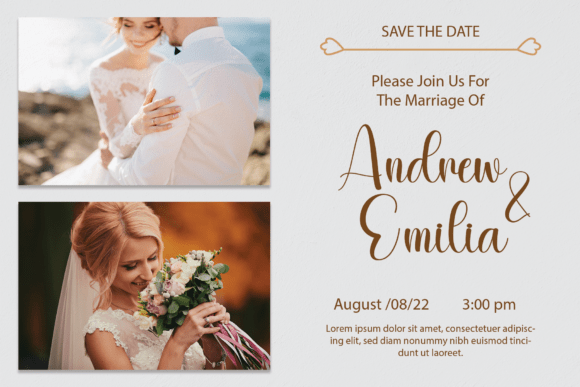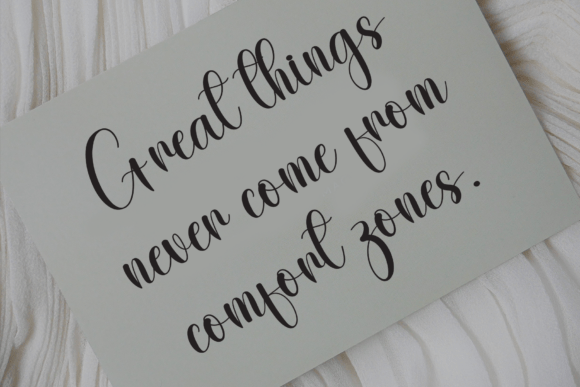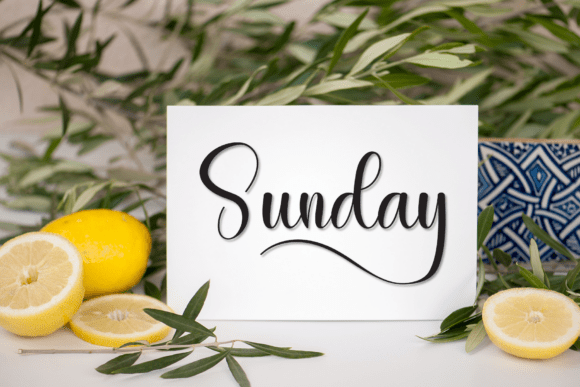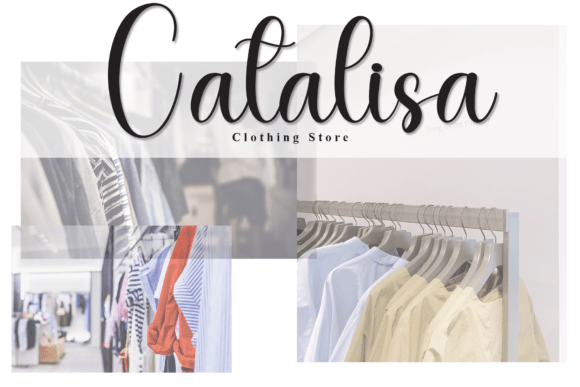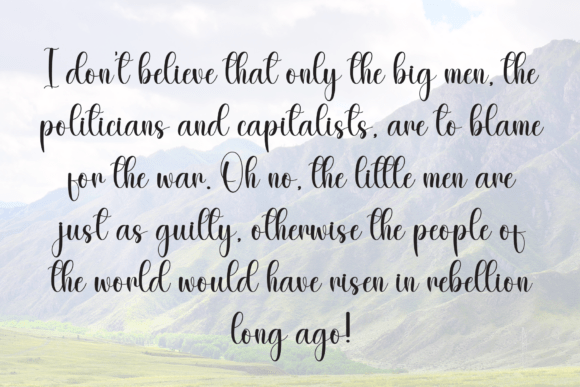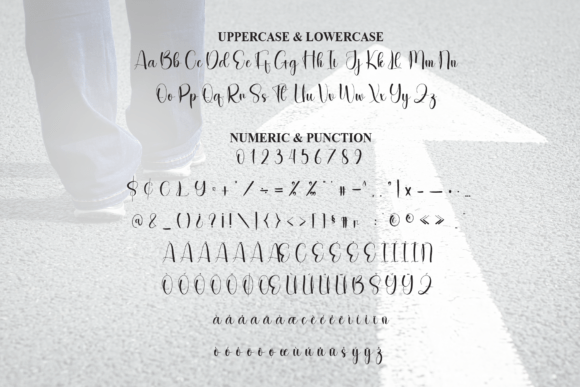
The Sweet Spot: Discovering the Charm of Following Font
I’ll never forget the time I was working on a wedding invitation project, and my client asked for a font that was “whimsical, yet elegant.” I scoured the internet, trying out font after font, but nothing seemed quite right. That was until I stumbled upon Following Font. With its adorable aesthetics and playful aura, it was love at first sight! In this article, I’ll share with you why Following Font has become a staple in my design toolkit and how you can make the most of its charming allure.
A Personal Review: The Good, the Great, and the Quirks
- ✨ Adorable, handwritten script that exudes an endearing sweetness
- ✅ Perfect for wedding invitations, cards, and other design projects that require a touch of whimsy
- 🎉 Playful aura that adds a dash of fun to any design
- 💕 Heartfelt expressions of joy, perfect for special occasions
While Following Font is a stunning addition to any design, there are a few things to keep in mind:
- 🤔 Limited use of uppercase letters, which can make it less suitable for certain design projects
- ⚠️ May not be the best choice for body text, as it can be a bit ornate for long blocks of text
A Practical Guide: Using Following Font in Your Design Workflow
- Experiment with OpenType features, such as glyphs and stylistic alternates, to add visual interest to your design
Exploring Alternatives: Similar Fonts to Following Font
If you love Following Font, you may also enjoy the following alternatives:
- Lobster: A elegant, cursive script font perfect for formal events and sophisticated designs
- Pacifico: A beautiful, handwritten script font with a relaxed, beachy vibe
- Great Vibes: A fun, energetic script font ideal for designs that require a playful touch
- Alex Brush: A whimsical, handwritten script font with a romantic, vintage feel
The Designer Inspiration Behind Following Font
Following Font was inspired by the charming, handwritten scripts of the past. Its creator, a talented type designer, sought to capture the essence of handwritten writing in a digital font. The result is a font that feels both nostalgic and modern, perfect for a wide range of design projects.
Q: What is Following Font best suited for?
A: Following Font is perfect for wedding invitations, cards, and other design projects that require a touch of whimsy and elegance.
Q: Can I use Following Font for body text?
A: While Following Font is a beautiful font, it may not be the best choice for body text, as it can be a bit ornate for long blocks of text.
Q: Is Following Font available in different weights or styles?
A: Currently, Following Font is available in a single weight, but its creator may release additional weights or styles in the future.